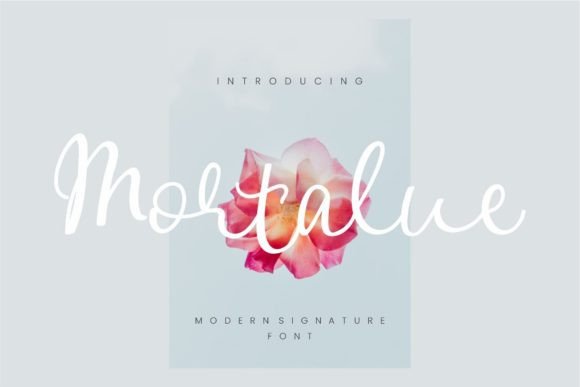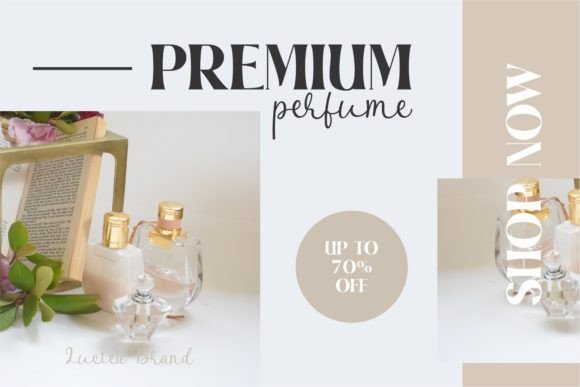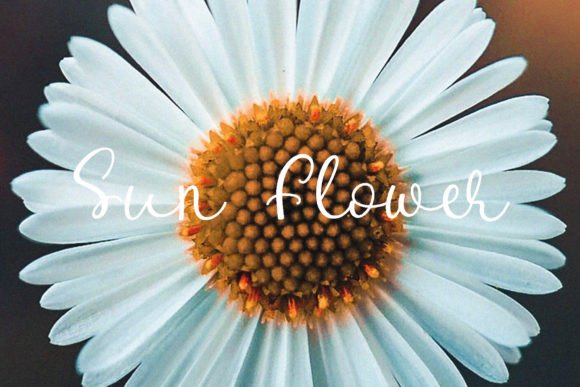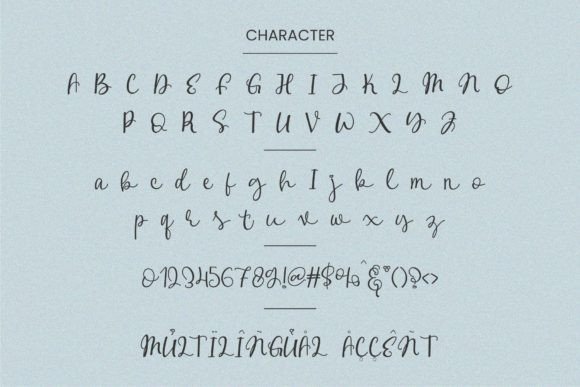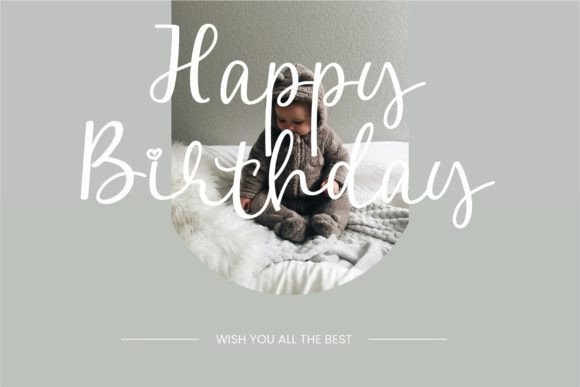
Mortalue Font
The Mortalue Font Download is a magical handwritten script designed to bring elegance and creativity into your projects. With smooth calligraphic strokes and graceful rhythm, this typeface adds a timeless look to everything from stationery to digital content. Whether you are working on Instagram graphics, invitations, or branding, Mortalue offers the perfect balance of style and usability.
A Magical and Elegant Handwritten Script
The Mortalue script font blends classic calligraphy with a modern handwritten style. As a result, it feels stylish yet approachable. Furthermore, its flowing shapes and elegant lines make it versatile across print and digital formats.
Handwritten fonts always add a personal touch to stationery. The Mortalue Font is ideal for wedding invitations, thank you notes, seasonal greetings, and birthday cards. Because of its elegant curves, each project looks heartfelt and unique. In addition, it ensures your stationery designs feel warm and memorable.
Branding and Logo Design with Mortalue Font
Typography plays a vital role in shaping brand identity. The Mortalue handwritten font works beautifully for logos, packaging, and boutique branding. Its elegant yet creative style makes businesses stand out while maintaining professionalism. Therefore, it is especially effective for fashion, lifestyle, and artisanal brands.
Posters, Quotes, and Editorial Work
The Mortalue Font Download is also perfect for posters, book covers, magazines, and inspirational quotes. Its balance of charm and clarity ensures it looks eye-catching without losing readability. Consequently, it is an excellent choice for both promotional and editorial layouts.
In today’s design space, fonts need to adapt seamlessly across platforms. The Mortalue typeface integrates into Instagram posts, YouTube thumbnails, Pinterest boards, and blog designs. Because of its handwritten elegance, it enhances digital projects with beauty and creativity.
Why Designers Choose Mortalue Typeface
Designers love fonts that merge elegance with practicality. The Mortalue handwritten script offers both personality and readability. Its magical strokes create engaging visuals, while its timeless style ensures long-term appeal. Moreover, it is flexible enough for professionals and hobbyists alike.
Add Magical Elegance to Your Projects Today
If you want a handwritten script that feels elegant, versatile, and timeless, the Mortalue Font Download is the perfect choice. From invitations and logos to posters, cards, and digital graphics, it enhances every design with sophistication. Finally, download Mortalue today and let your projects shine with handwritten magic.